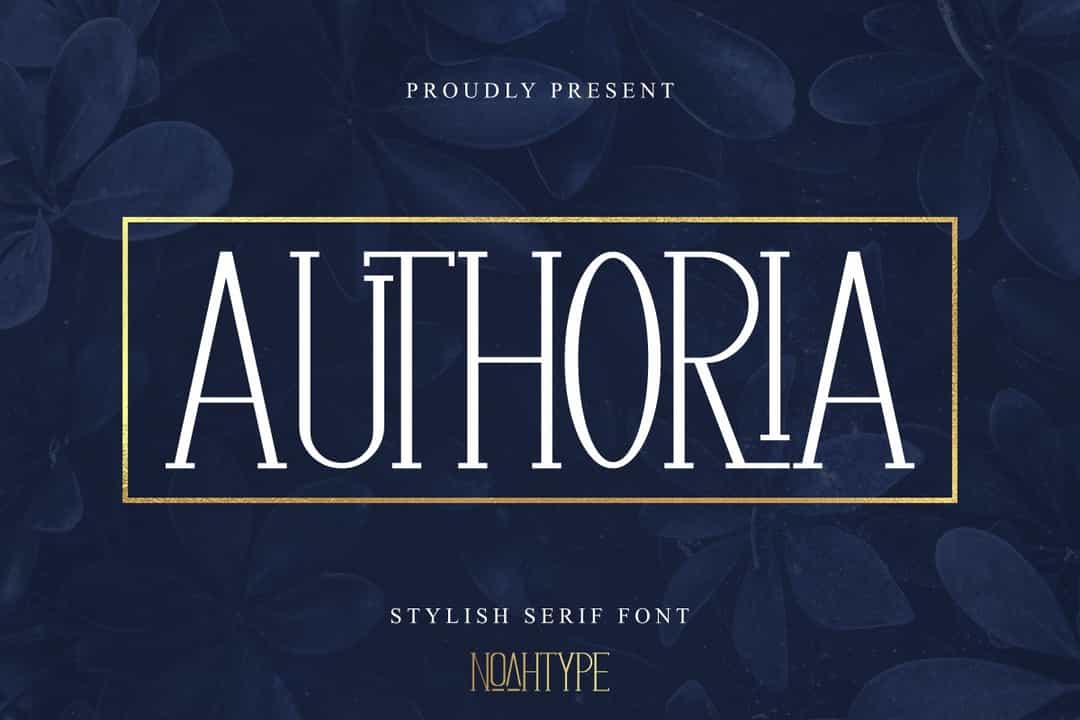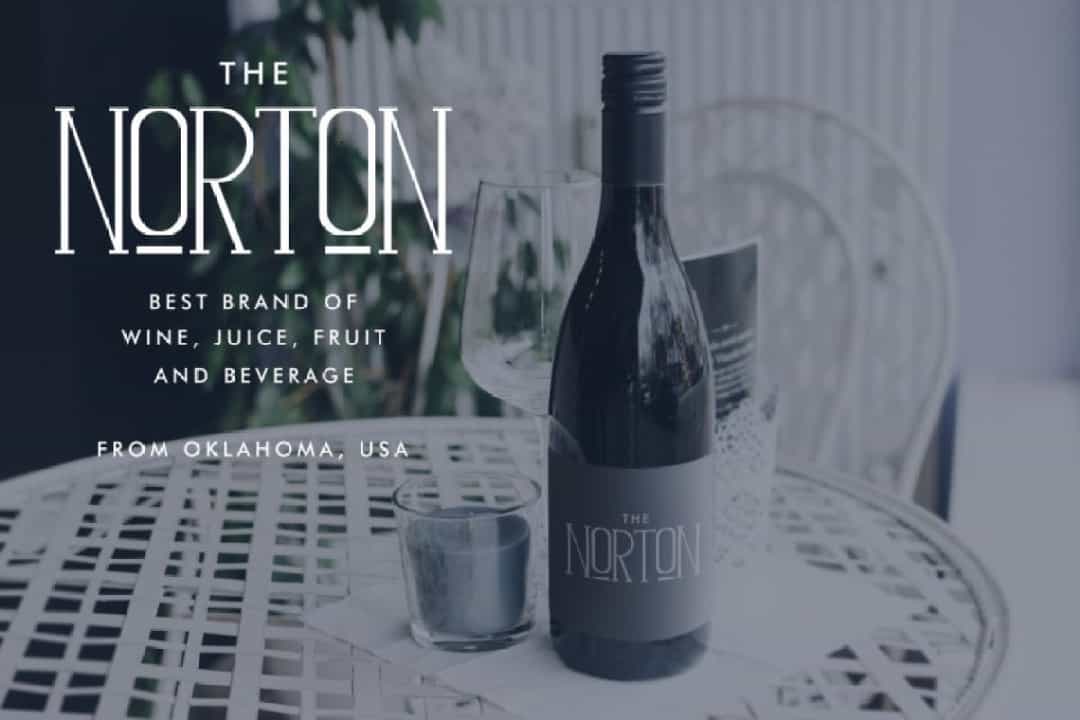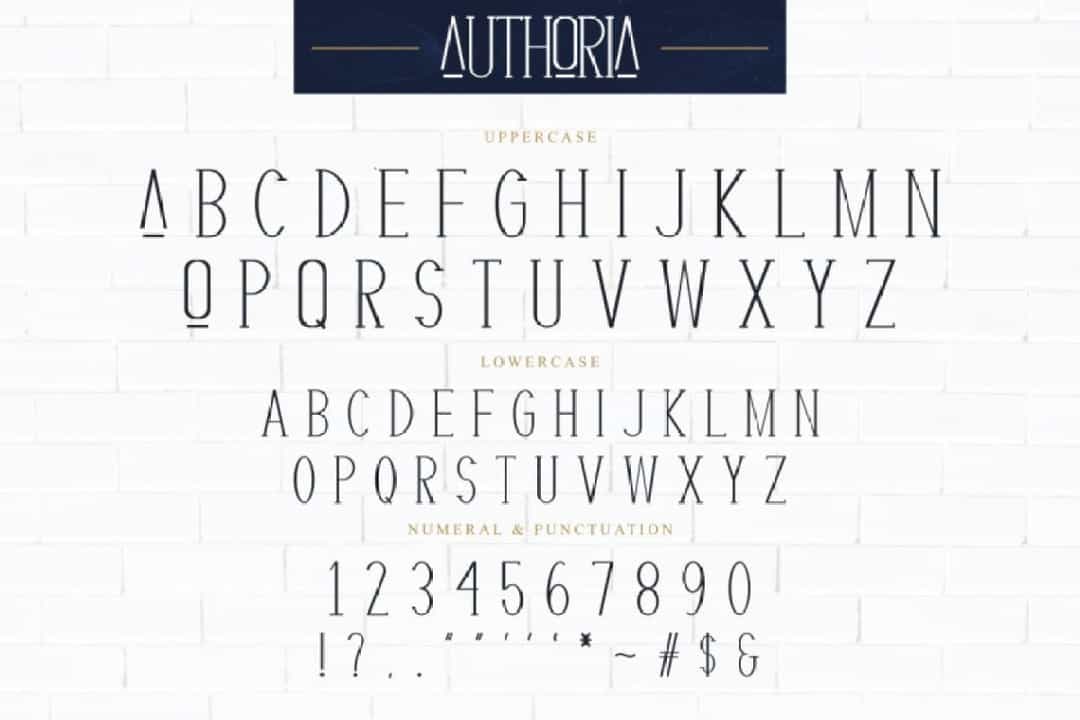
Authoria is a proper serif display font with the both touch of the traditional look and the contemporary style that make for the great design. Each letter was designed to make Authoria look classic yet modern; with the Vintage theme used for both classic and modern styles. Here you will find special characters which are not available in other games!